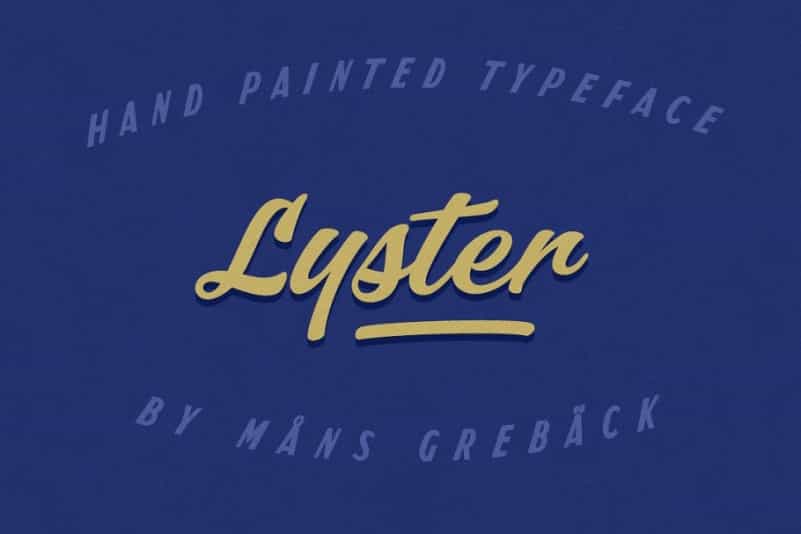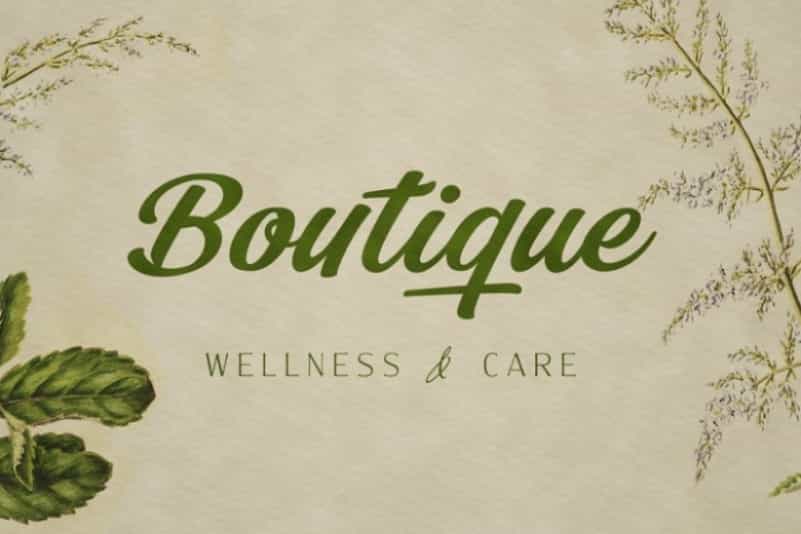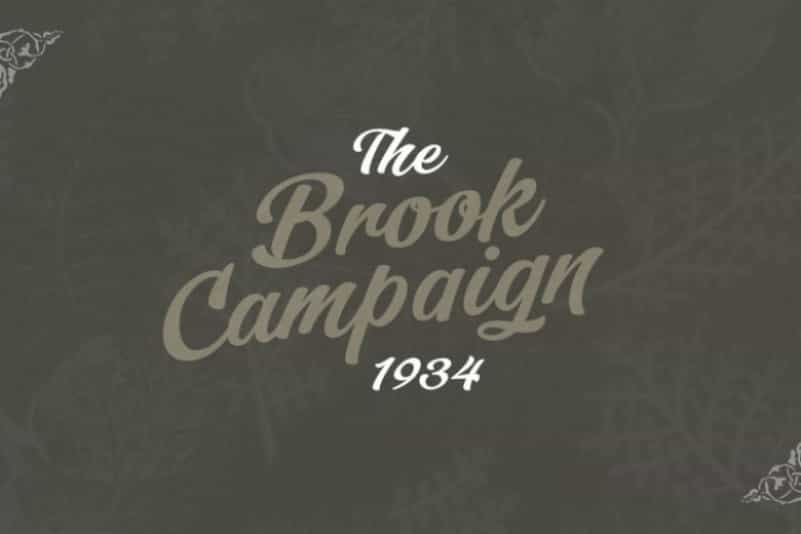
Discover Lyster Hand Painted Brush Script Font, part of the Brush Calligraphy collection—a versatile and unique font perfect for adding a personal touch to your projects. Download it for free and enjoy crafting designs with style, from invitations to social media posts. This font is available exclusively for personal use, giving you the freedom to create without limits. Unlock your creativity with Lyster Hand Painted Brush Script Font today!